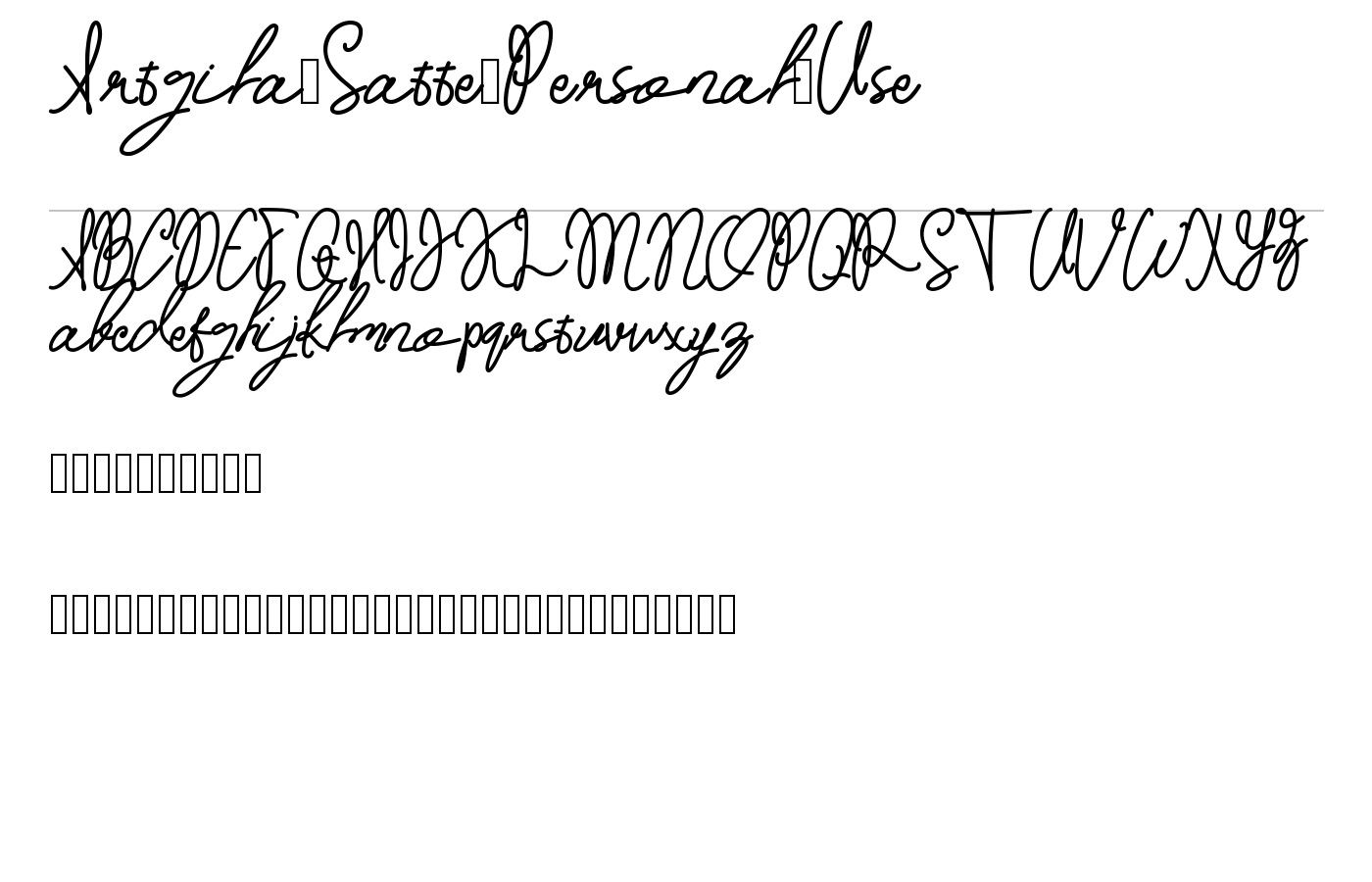
Artgila Satte Personal Use is a delicate, handwritten script font that exudes a casual yet elegant charm. With its fine, flowing strokes and slightly condensed letterforms, it feels personal and intimate, making it perfect for creative projects, invitations, and branding that seeks a warm, approachable, and artistic touch. Its intricate, cursive style works best in headlines or decorative text where a human, handcrafted feel is desired.